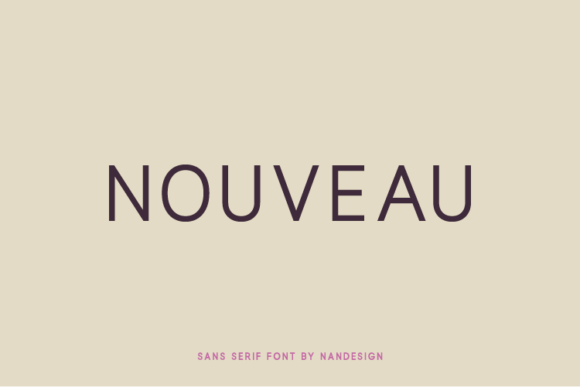
Feast your eyes upon Nouveau Font, a creation from Nan Design, a masterpiece designed to make your designs radiate brilliance. This elegant sans serif font is poised to transform your creative projects into works of art.
Elevate your designs to new heights with Nouveau Font. With its clean lines and timeless appeal, this font will leave an indelible mark on any project. Visualize your website, branding, and social media posts adorned with Nouveau Font; watch as they command attention and compel your audience to engage.
Create breathtaking headings, invitations, logos, and more, all imbued with an air of sophistication and grace. Its versatility extends to displays, headers, save-the-dates, weddings – imagine the possibilities! Envision your words dancing across the screen or printed page, exuding elegance and refinement.
Nouveau Font is more than just a font; it's an extension of your creative vision. It's a tool that empowers you to express yourself with unparalleled clarity and style. Your audience will be captivated by the visual symphony that unfolds before their eyes.